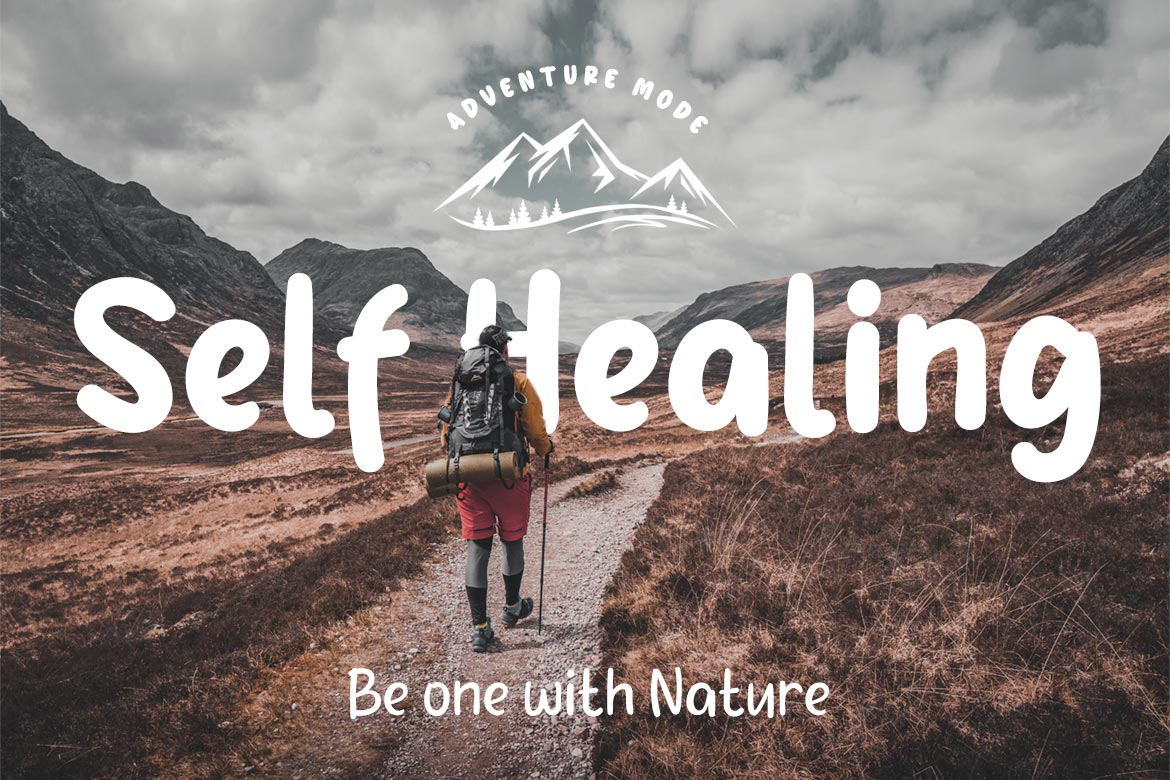
Gefuh Font
Gefuh Display Font
This is our latest handwritten font that we designed with a natural theme, if you are having an outdoor project or something related to nature or whatever your special project is then this font will make your project look special because of the theme and the alignment looks appropriate and appropriate.
This font is designed with a natural touch of handwriting which is refined to create a portion and composition that suits your needs. So this font is suitable for craft, children’s writing, adventure posters, food banner titles, wedding invitations, product packaging logos, quotes, social media page covers, furniture banner headlines, book covers, and much more.